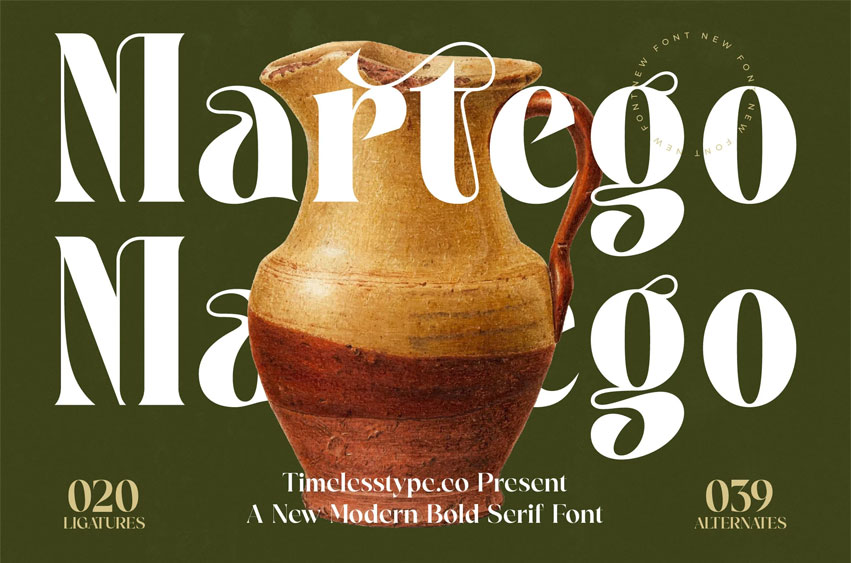
Martego Font is a modern bold serif display font defined by elegant curves, expressive high-contrast strokes, and refined decorative swashes that add a luxurious, artistic feel to any design. Inspired by classical forms with a contemporary twist, this typeface is perfect for branding, editorial layouts, packaging, logos, boutique identities, invitations, and high-end visual storytelling.
With its rich alternates and thoughtful ligatures, Martego offers designers a versatile, sophisticated, and memorable serif that elevates every project with style and distinction.